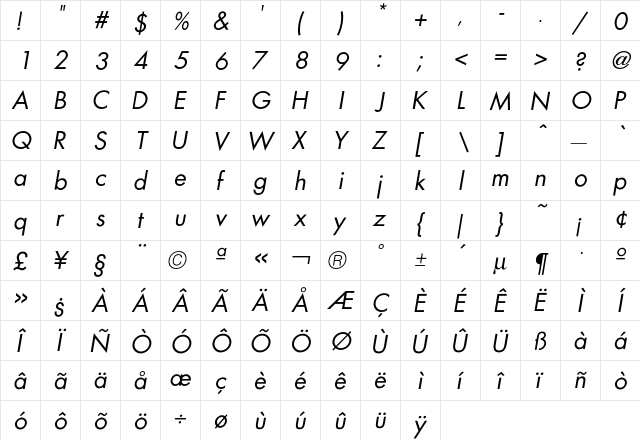
FuturaICG BookOblique Font Preview
FuturaICG BookOblique
Design Context for FuturaICG Typeface
FuturaICG has a distinctly futuristic character, with geometric precision and clean angles that feel at home in technology, gaming, and sci-fi contexts. The dynamic lean of this cut emphasises speed and emphasis in any layout.